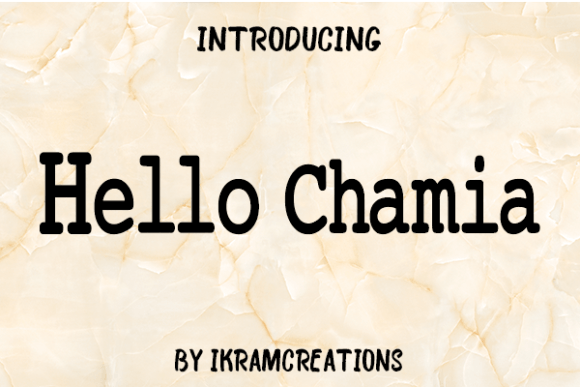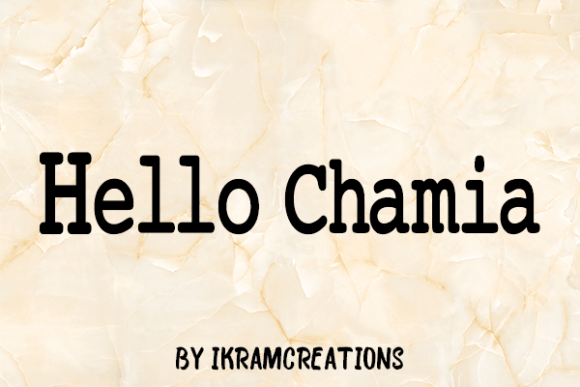
Hello Chamia Font: A Bold Display Font for Logo Design
About the Hello Chamia Font
The Hello Chamia Font offers a perfect balance of form and function for your design needs. Hello Chamia is the best choice for creating eye-catching logos, branding, and quotes. Every letter has a unique and beautiful touch, which will make your design come alive!
Chamia’s distinctive letterforms are ideally suited for headlines, short text blocks, and impactful branding elements such as logos and short taglines. Its strong visual presence makes it less effective for body copy or extended text; readability suffers at smaller sizes. Avoid using it for UI elements or lengthy paragraphs.
Its personality is bold and slightly playful, yet retains a sophisticated elegance. This makes it a perfect fit for brands aiming for a modern yet timeless feel, perhaps in fashion, beauty, or high-end lifestyle products.
Pairing Chamia with a clean sans-serif like Lato or Open Sans for body text creates a balanced contrast. For a more luxurious feel, consider pairing it with a classic serif like Garamond or a delicate script font such as Great Vibes, using Chamia for the main title or logo.
Hello Chamia Font Usage Examples
Hello Chamia Font Example